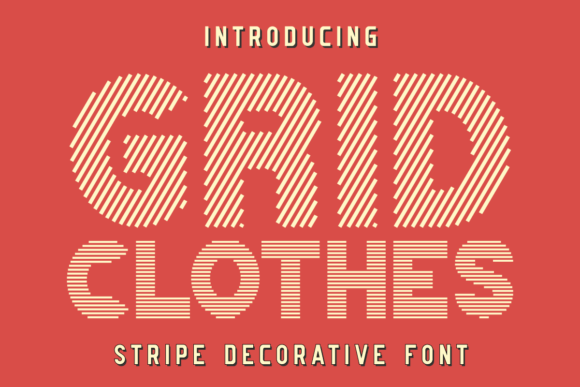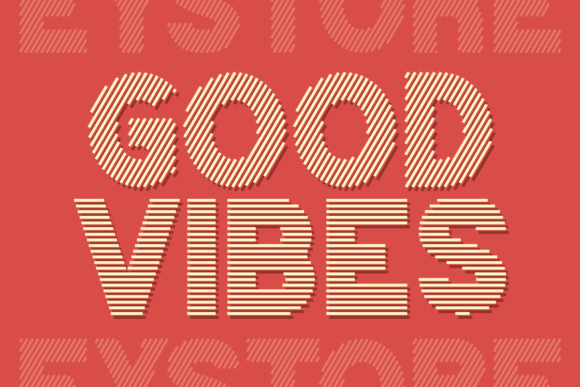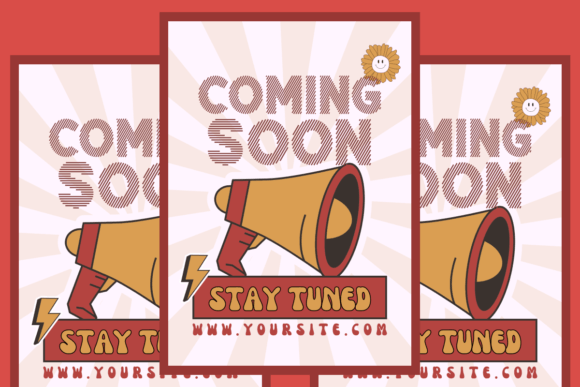
Grid Clothes Font
About the Grid Clothes Font
The wait is over! The incredible Grid Clothes Font is now available for your design toolkit. Grid Clothes is a unique and striped style decoration font. Wide characters make this font ideal for eye-catching designs. You can use it for headlines, t-shirt typography, banners, product labels, posters, flyers, and much more.
Grid Clothes’ bold, graphic nature makes it perfect for headlines, branding applications requiring a strong visual impact, and short, impactful displays on packaging or posters. Its wide character spacing prevents effective use in body text or UI elements requiring high readability.
The font’s playful yet structured personality pairs well with clean sans-serif fonts like Open Sans for body copy, offering a balance between boldness and legibility. Alternatively, a classic serif such as Garamond could add a touch of sophistication, contrasting the geometric nature of Grid Clothes.
For a more modern feel, consider pairing it with a geometric sans-serif like Montserrat. Avoid pairing it with other highly decorative or script fonts, as this would create visual clutter and diminish the impact of Grid Clothes’ unique design.
Grid Clothes Font Example